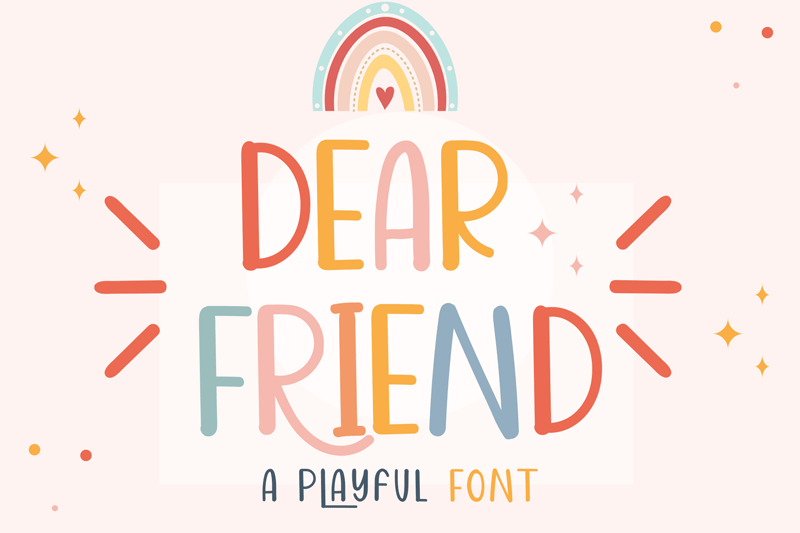
Font name: | Dear Friend |
Author: | Anggun Bangkit Hutami |
Dear Friend is a playful and cute handwritten font. It is perfect for children themed designs, especially when combined with bright colors. if You Want to Use for Commercial Project, Please Purchase it on the following link https://www.creativefabrica.com/product/dear-friend/ref/934867/ For other question, contact us at ANDANG PRASETYO prasetyo.andang1010@gmail.com |